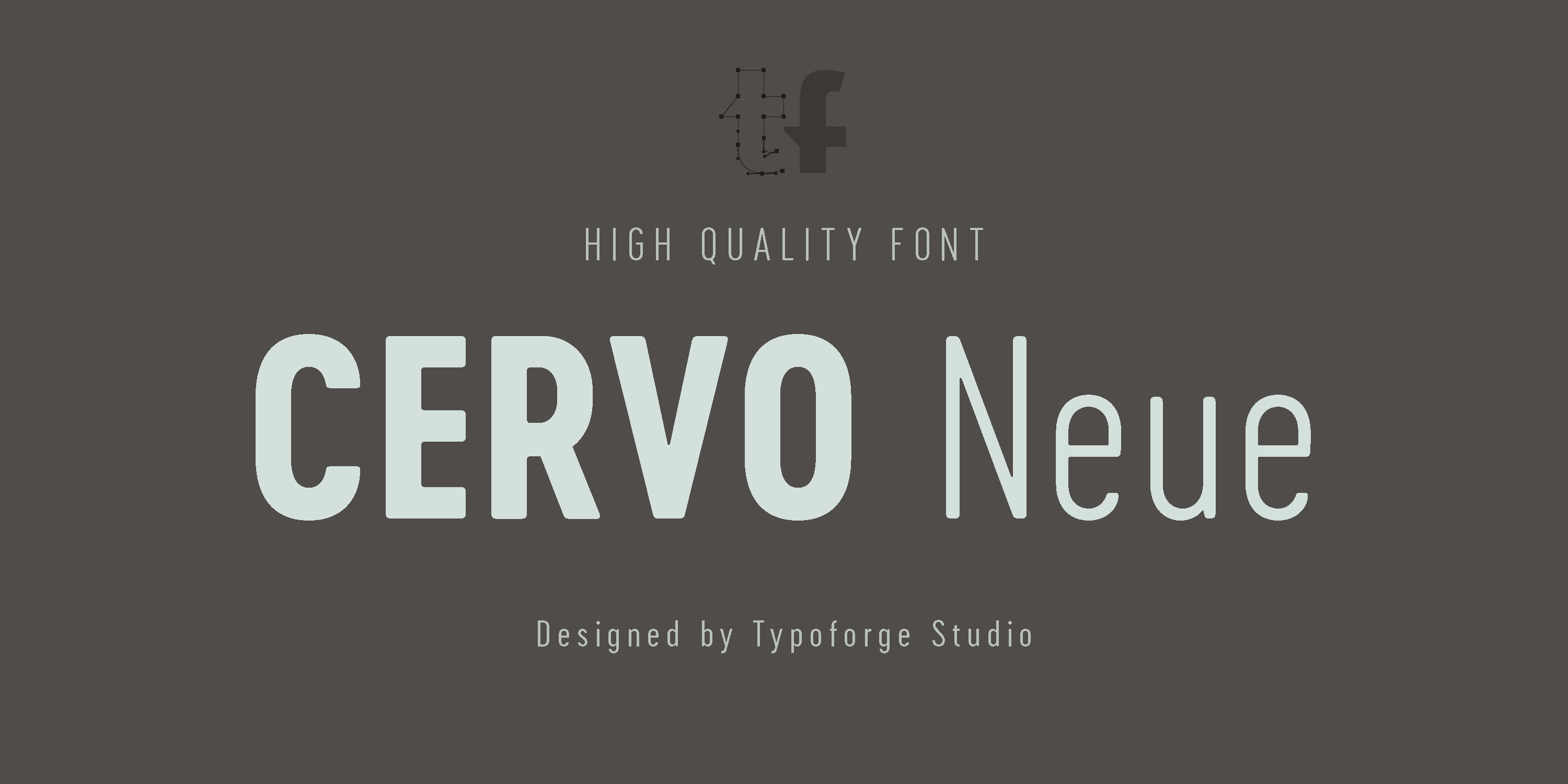
Cervo Neue Font is perfect for outdoor adventure branding, wildlife conservation materials, nature photography portfolios, hunting equipment marketing, forest management documentation, and wilderness expedition communications. Its organic character makes it ideal for national parks, outdoor gear companies, eco-tourism operators, forestry services, and any application requiring natural typography that conveys woodland authenticity, outdoor expertise, and connection to wildlife habitats.
Cervo Neue Font is exciting because it embodies the graceful strength and natural elegance of forest wildlife through letterforms that echo the organic patterns found in woodland environments. Its balanced proportions and earthy aesthetic reflect the harmony between civilization and nature, making it perfect for organizations dedicated to outdoor adventure and environmental stewardship. The font's wild character helps establish authentic connections with nature-loving audiences seeking genuine outdoor experiences.
Cervo Neue Font family includes nature-inspired weight variations typically featuring Light, Regular, Medium, and Bold options with flowing italic styles that mirror natural movement patterns. The family often incorporates outdoor symbols, wilderness characters, and extended sets designed for international outdoor applications, providing designers with comprehensive tools for creating authentic, environmentally-conscious typographic solutions.
When selecting wilderness typography solutions, Cervo Neue Font Free Download represents an exceptional choice for outdoor-focused creative projects. This distinctive typeface brings instant natural authenticity to any design, making it invaluable for adventure tourism companies, conservation organizations, and outdoor equipment brands. Whether you're developing wilderness expedition branding, creating nature conservation materials, or designing outdoor adventure marketing campaigns, Cervo Neue Font provides the organic beauty and wilderness credibility essential for connecting with outdoor enthusiasts in today's adventure-seeking marketplace.